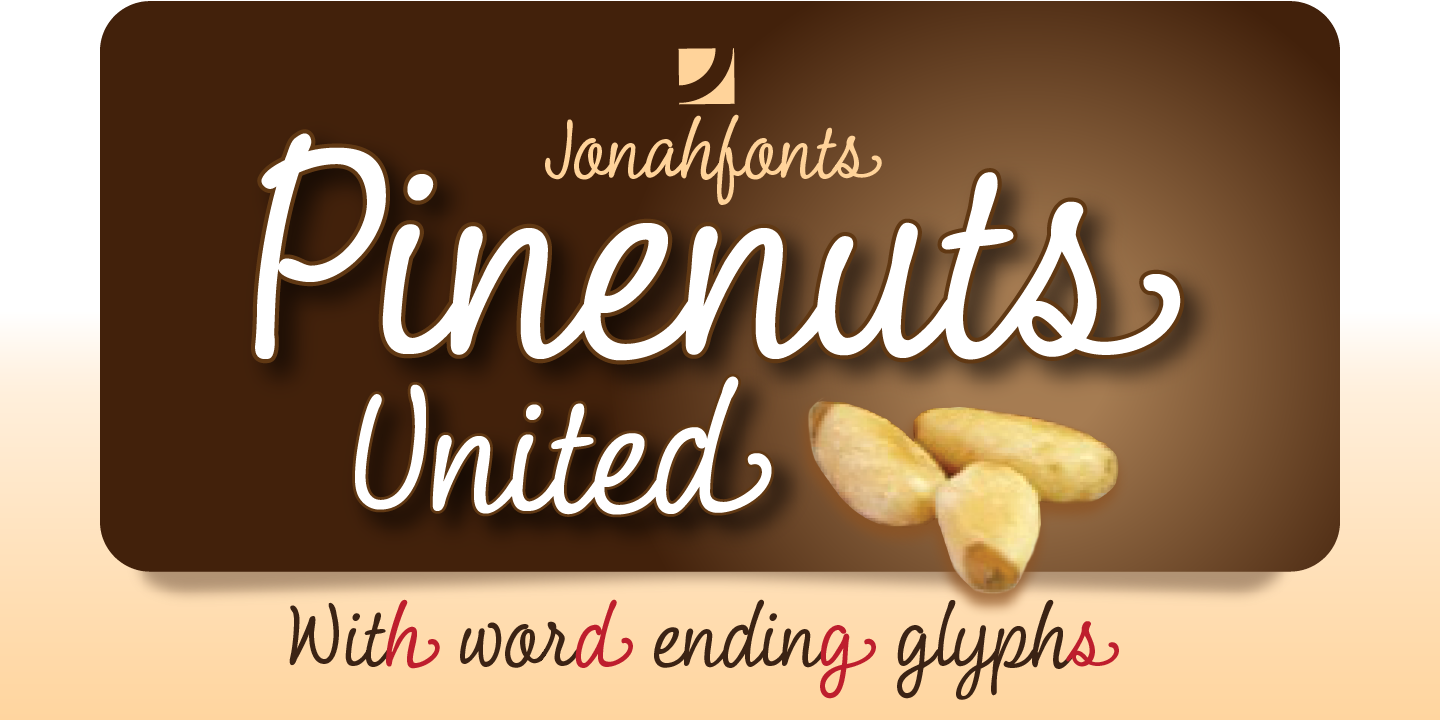
Pine Nuts United Font is perfect for natural food branding, organic restaurant menus, eco-friendly product packaging, nature conservation campaigns, outdoor adventure logos, forest-themed designs, sustainable business branding, artisanal market signage, environmental awareness posters, botanical illustrations, and any project that requires earthy authenticity with natural harmony.
What makes Pine Nuts United Font exciting is its unique ability to blend organic nature inspiration with unified design principles that create perfect harmony between readability and natural aesthetics. This distinctive typeface features flowing letterforms with subtle organic curves that evoke the peaceful essence of forest environments while maintaining professional clarity. The font's natural character brings a sense of calm and environmental consciousness to any design project.
Pine Nuts United Font comes in multiple font families including Regular, Bold, Light, Italic, Condensed, and Organic variations, offering designers comprehensive flexibility to create harmonious compositions and achieve the perfect natural aesthetic for eco-conscious design projects.
Whether you're developing sustainable brand identity, creating environmental campaign materials, or designing nature-inspired packaging, Pine Nuts United Font Free Download provides the ideal solution for projects emphasizing natural values and environmental responsibility. This versatile typeface excels in both digital and print applications, ensuring your designs communicate organic authenticity and ecological awareness. The natural flow and unified character of Pine Nuts United Font make it an indispensable tool for designers who prioritize environmental consciousness, natural beauty, and sustainable design principles in their typographic selections.